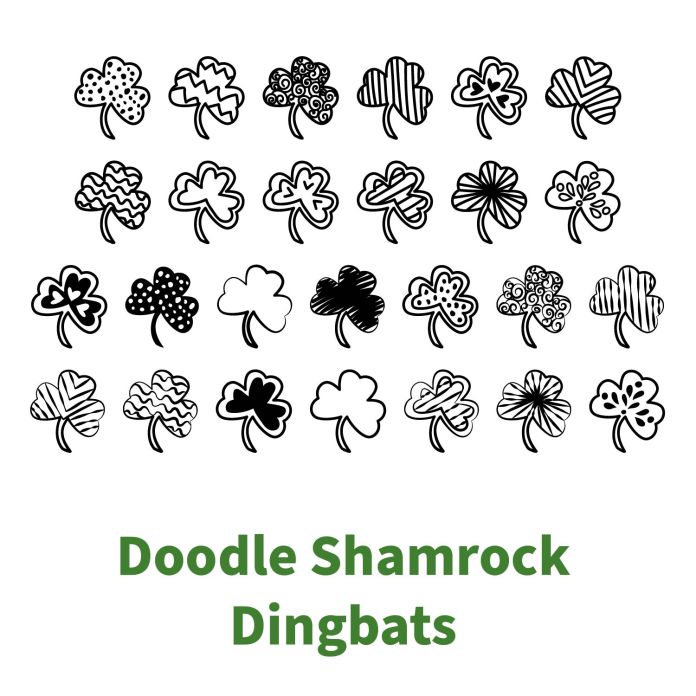
Doodle Shamrock Dingbat Font gives you 26 different hand drawn doodle style shamrocks to use in all your St. Patrick's Day or clover themed crafts. OTF file